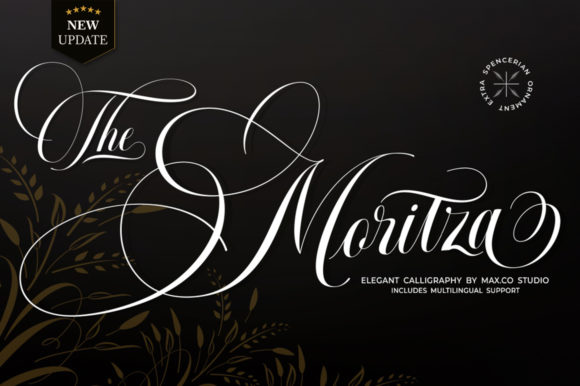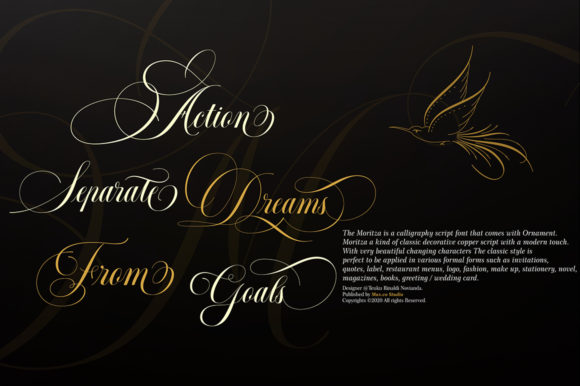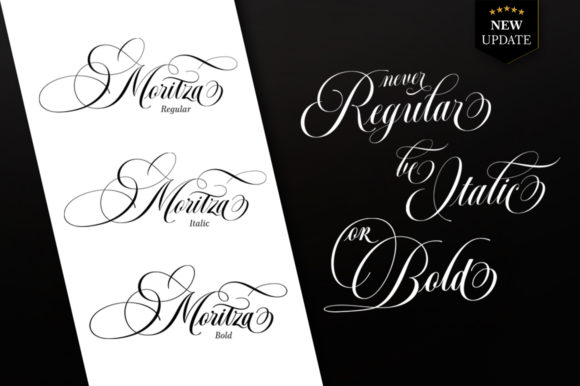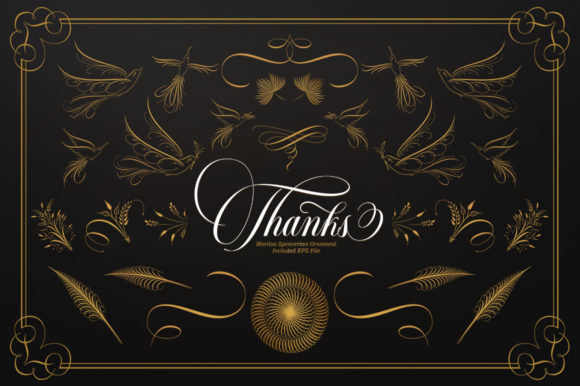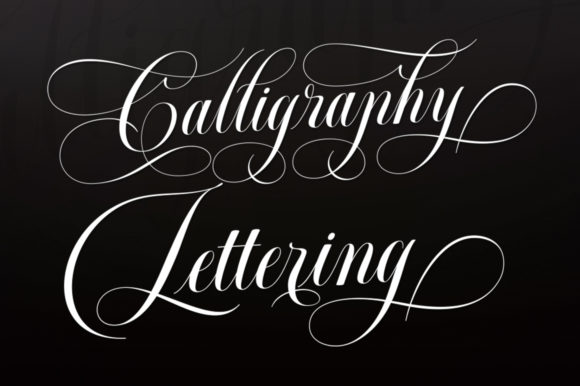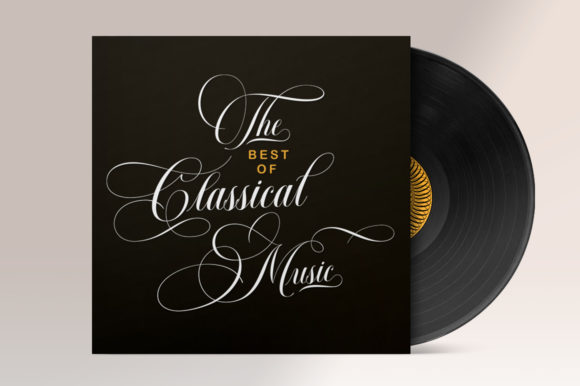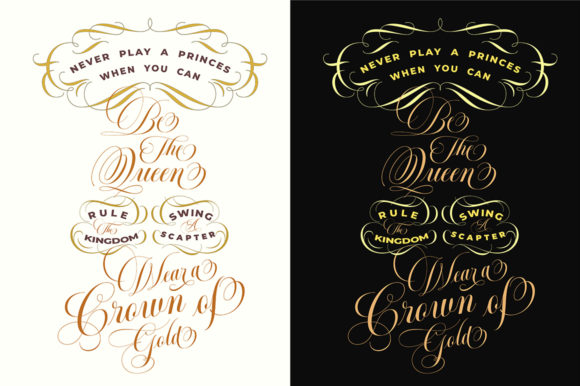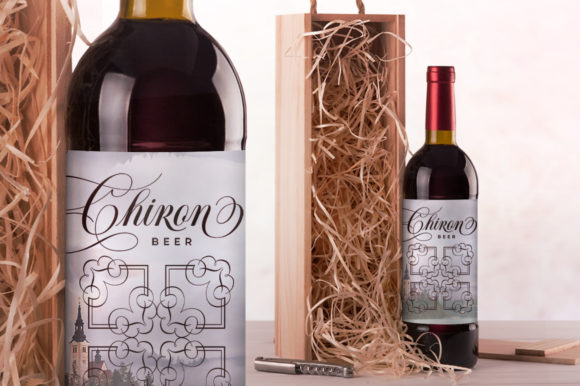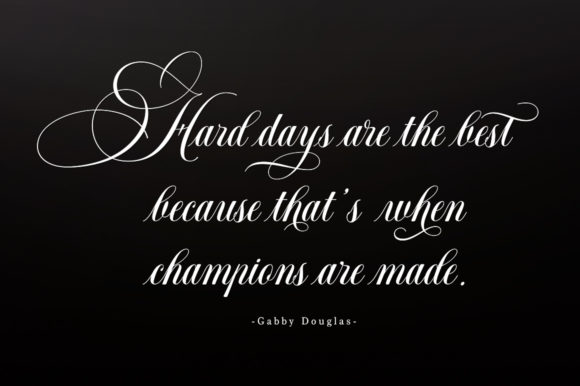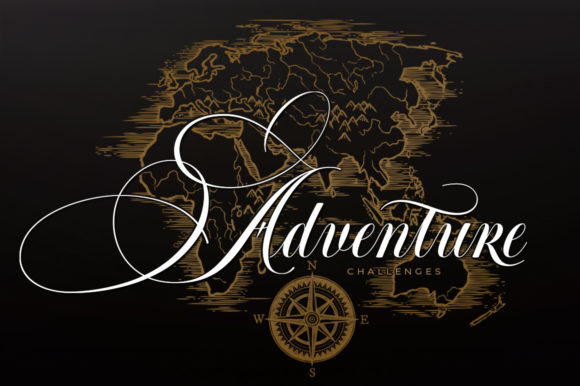
The Moritza Font
About The Moritza Font
The Moritza simplifies elegance into one truly outstanding handwritten font. It maintains its classy calligraphic influences while feeling contemporary and fresh. It features beautiful ornaments that will add a decorative touch to any project! This versatility will appeal to a wide range of crafty ideas, from letterheads and titles, to stationery.